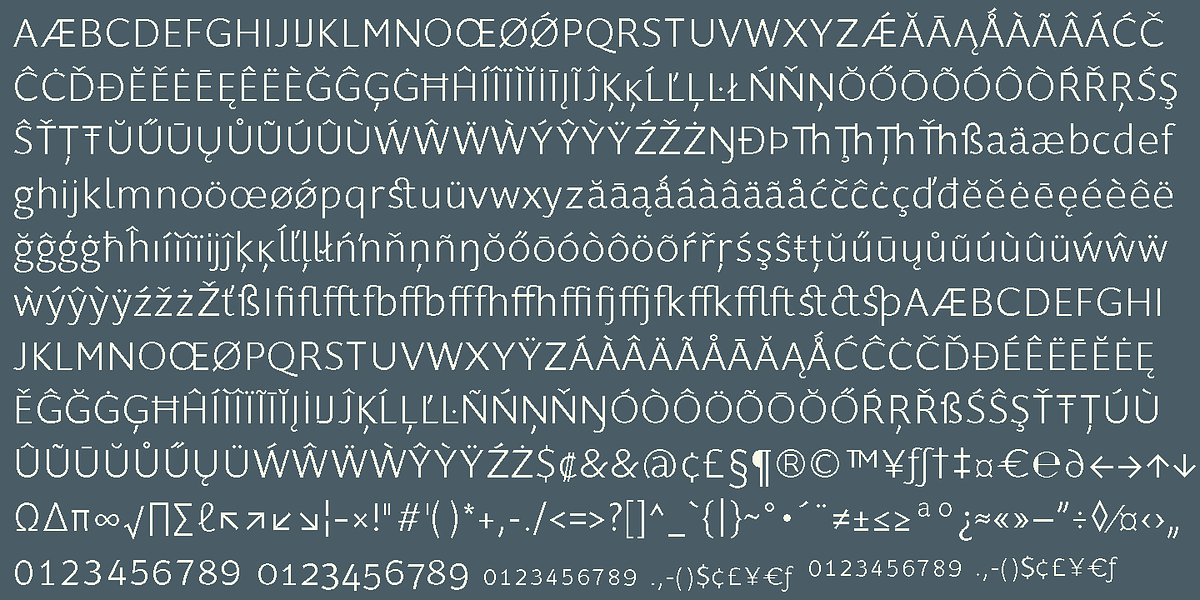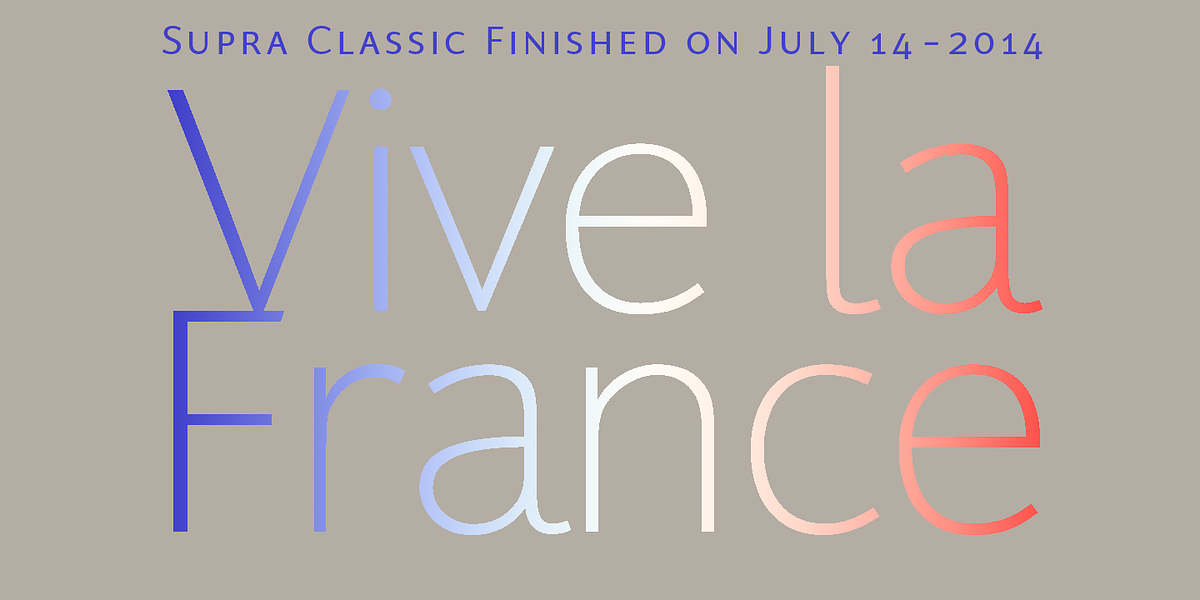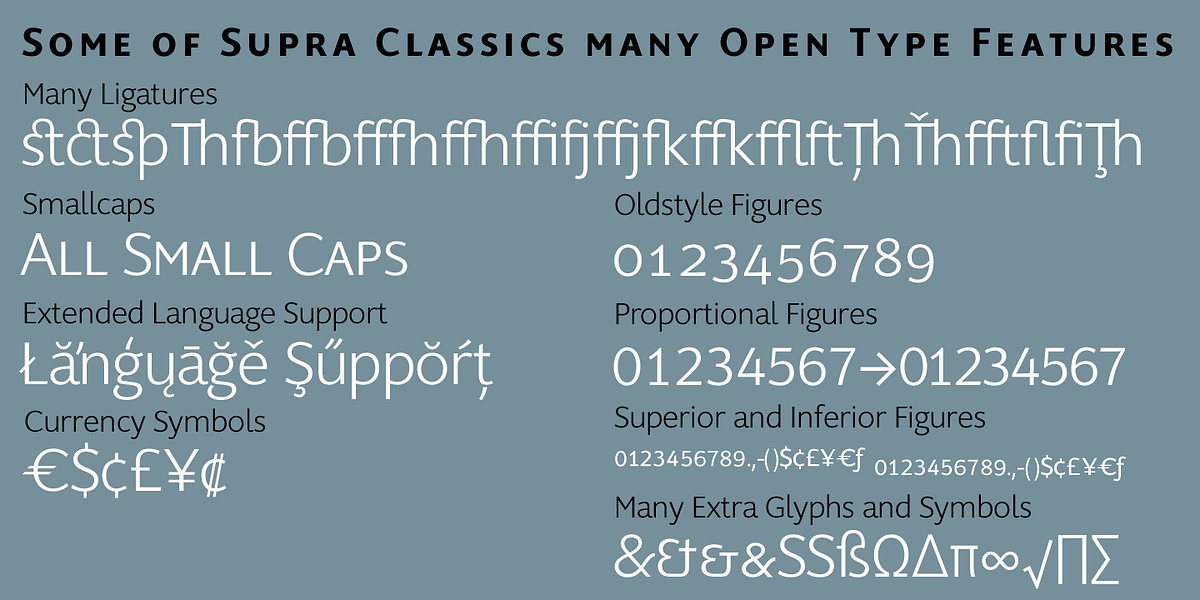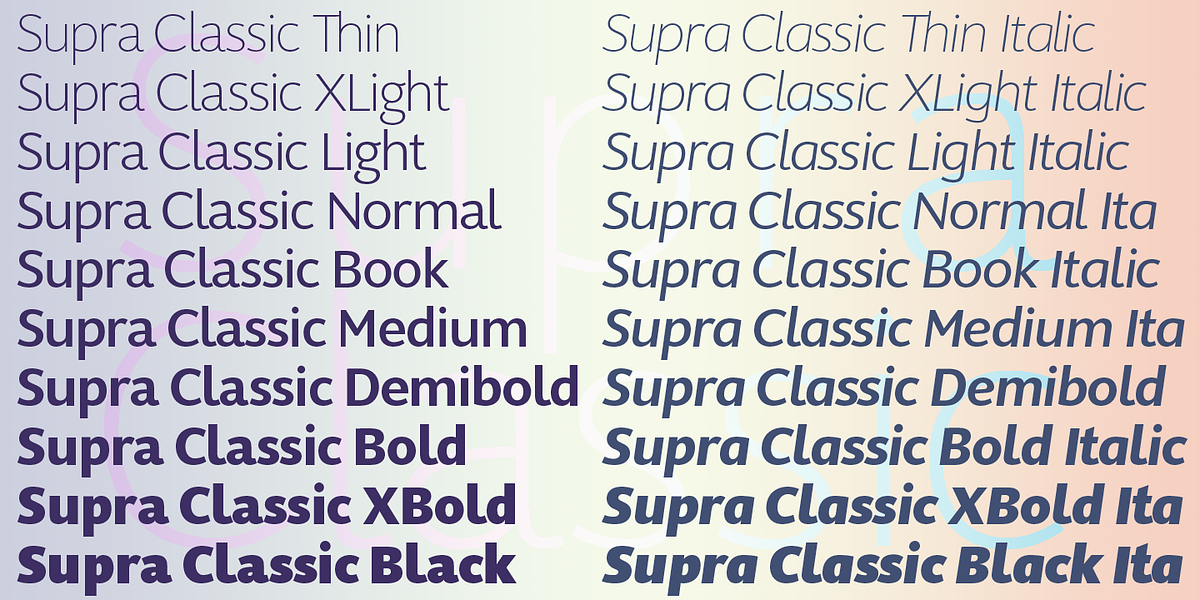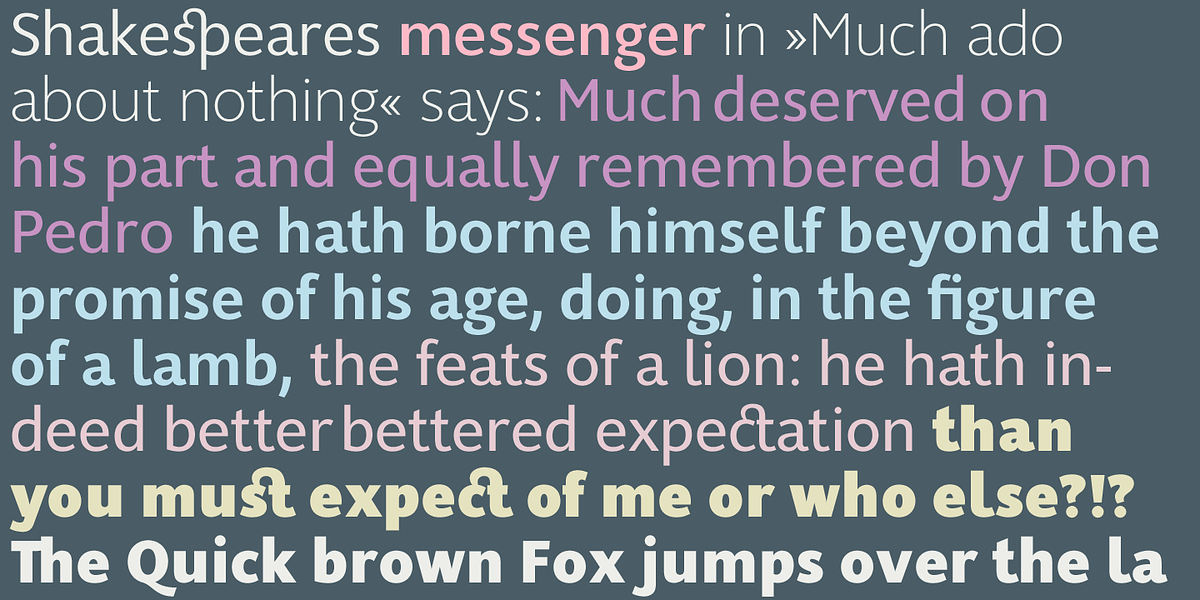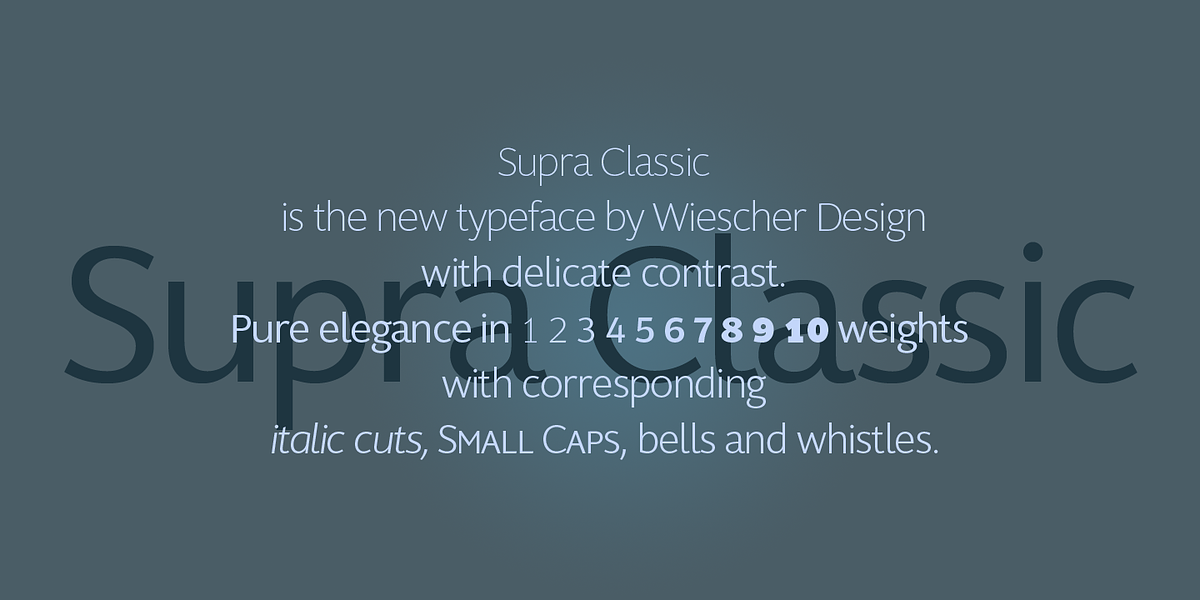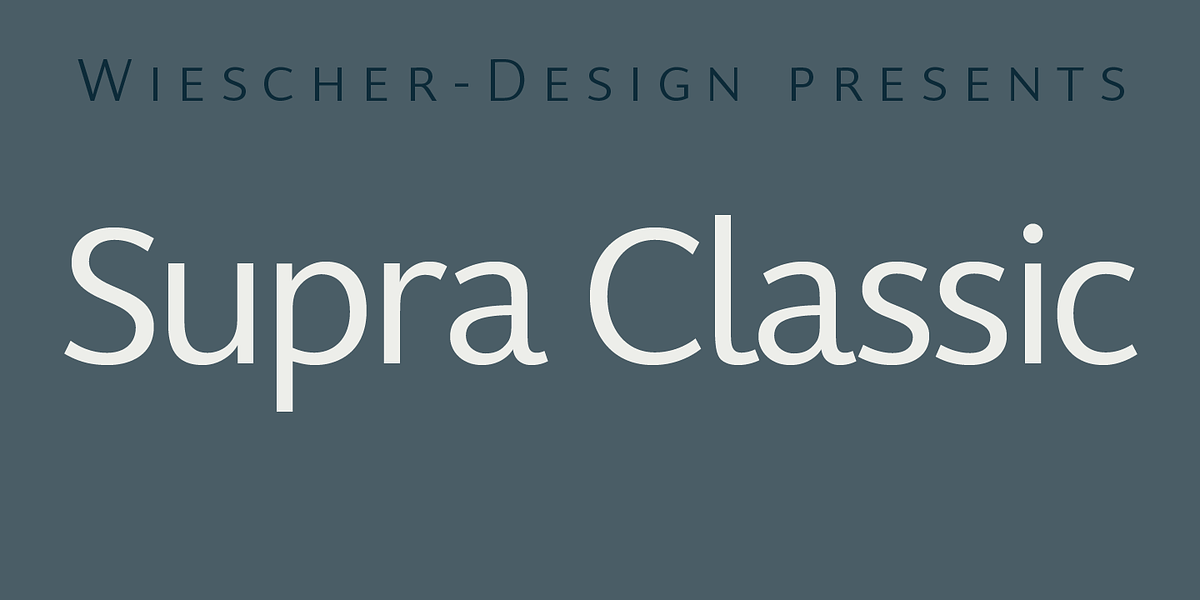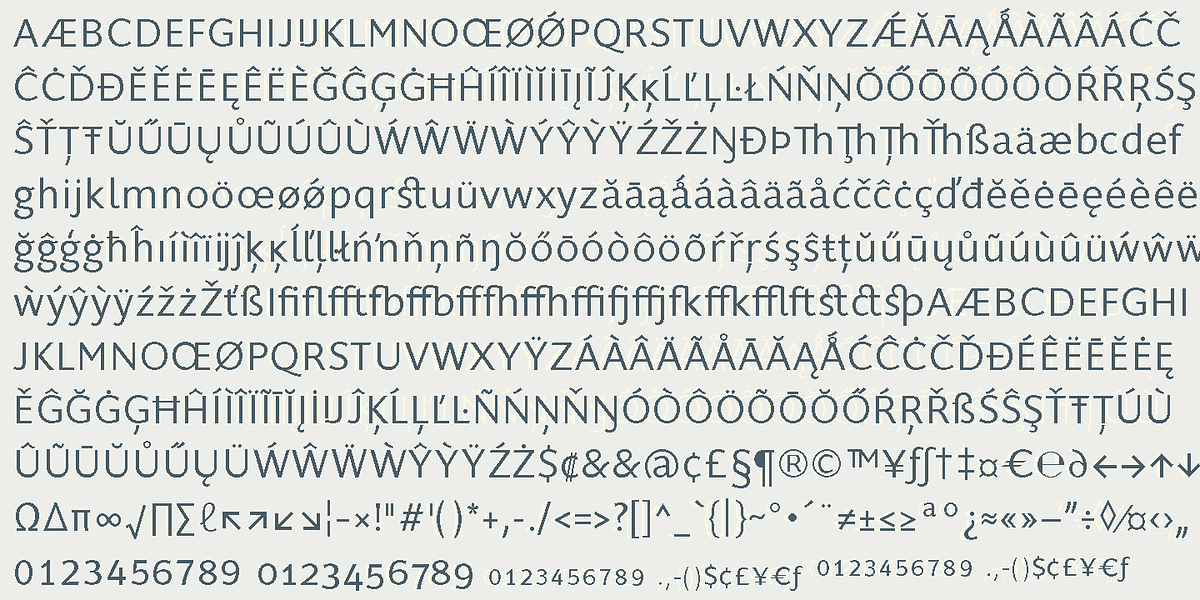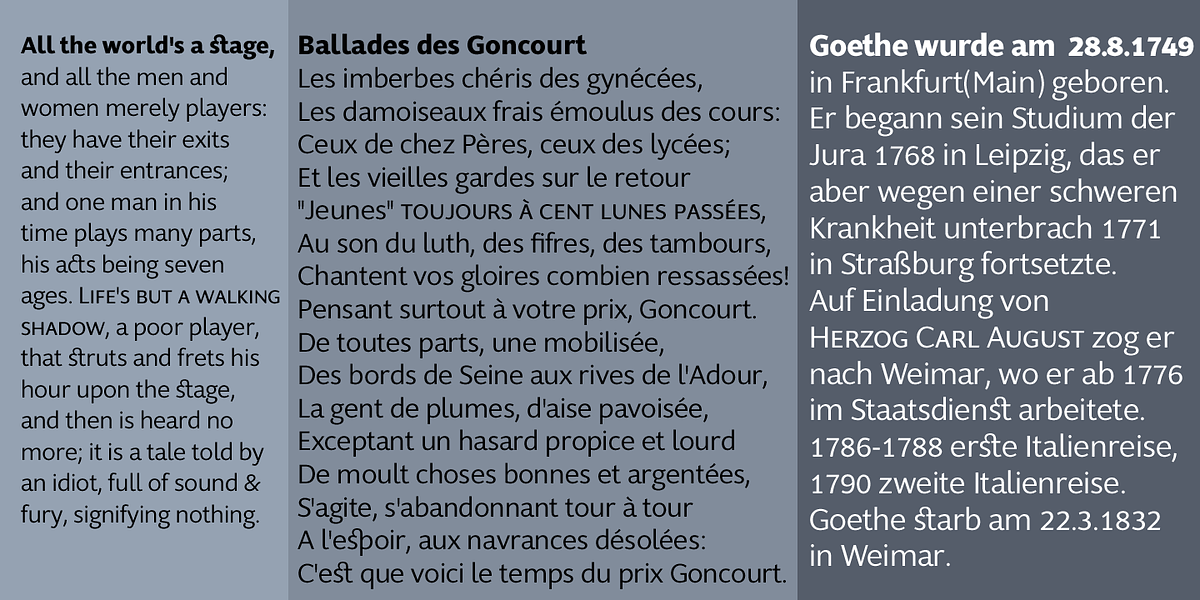
Supra Classic
SupraClassic is a well-designed grotesque sans serif font with 10 weights and corresponding italic versions. Its elegant contrast between thick and thin strokes enhances legibility, while the prominent x-height ensures easy readability for extended text passages. The Black weight excels in creating impactful headlines.